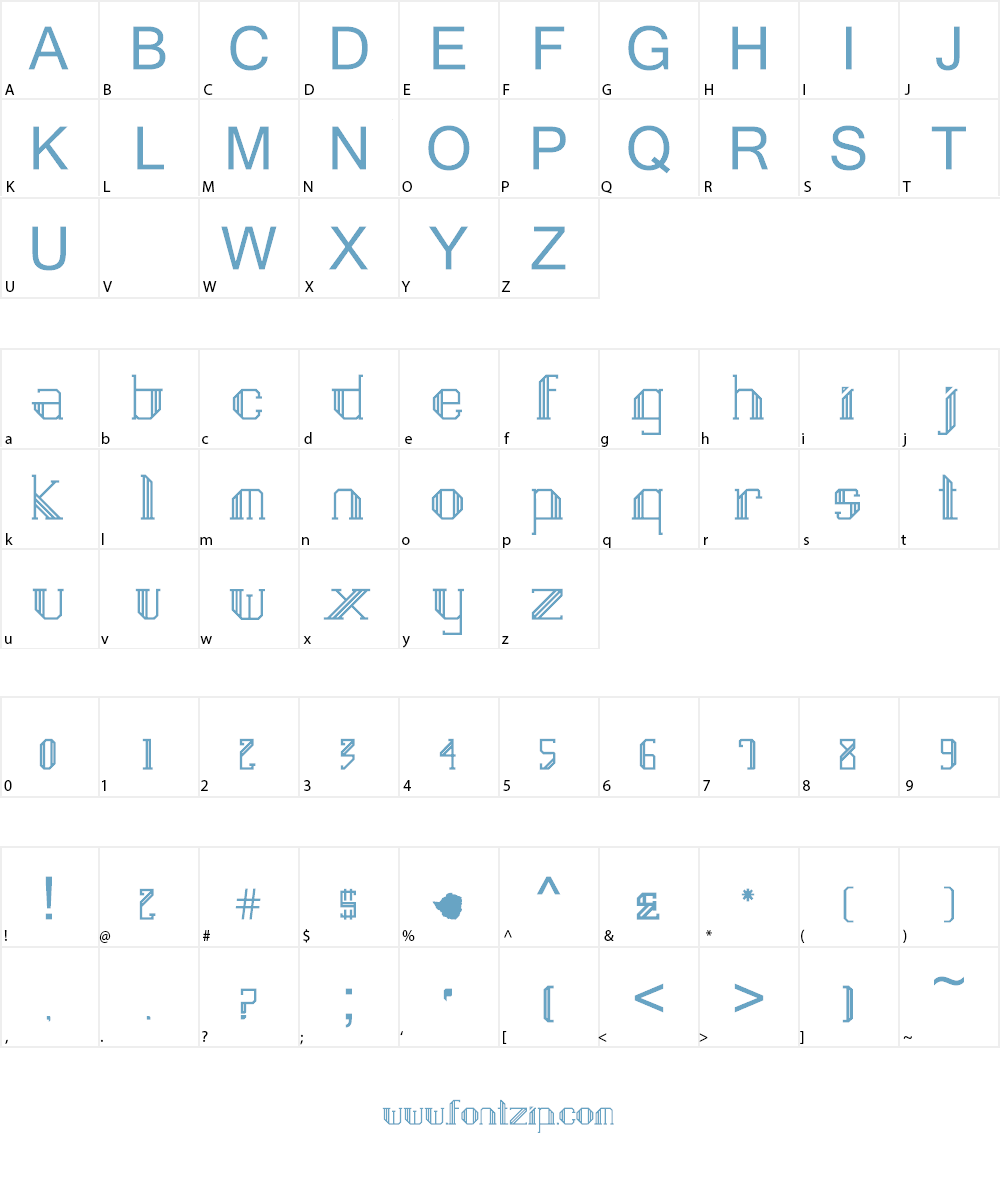
A display font created in support for the #ThisFlag campaign in Zimbabwe which started as a rant on Facebook by Pastor Evan Mawarire and resulted in one of the biggest stay away protests in Zimbabwe on July 06 2016